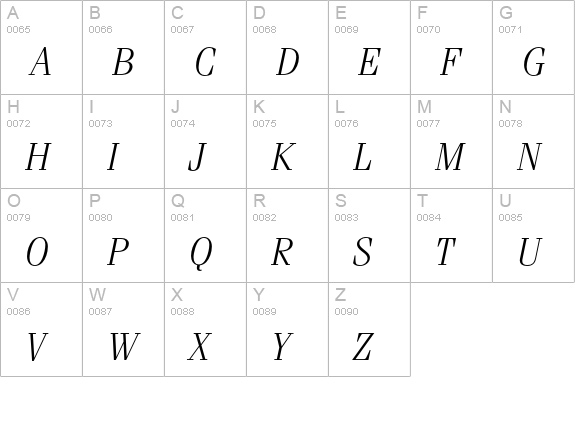
FeniceEF-LightItalic Font Details
FeniceEF-LightItalic is a beautifully crafted font that exudes elegance and sophistication. Its delicate and flowing italic style adds a touch of grace to any design project. With its subtle curves and stylish flourishes, FeniceEF-LightItalic is perfect for adding a touch of sophistication to invitations, logos, branding, and more. The best part? FeniceEF-LightItalic is completely free to download at FontsMarket.com. This means you can easily incorporate this stunning font into your projects without breaking the bank. Whether you're a designer looking to elevate your work or someone simply looking to add a touch of elegance to your personal projects, FeniceEF-LightItalic is the perfect choice. Download it now and elevate your designs with this exquisite font.